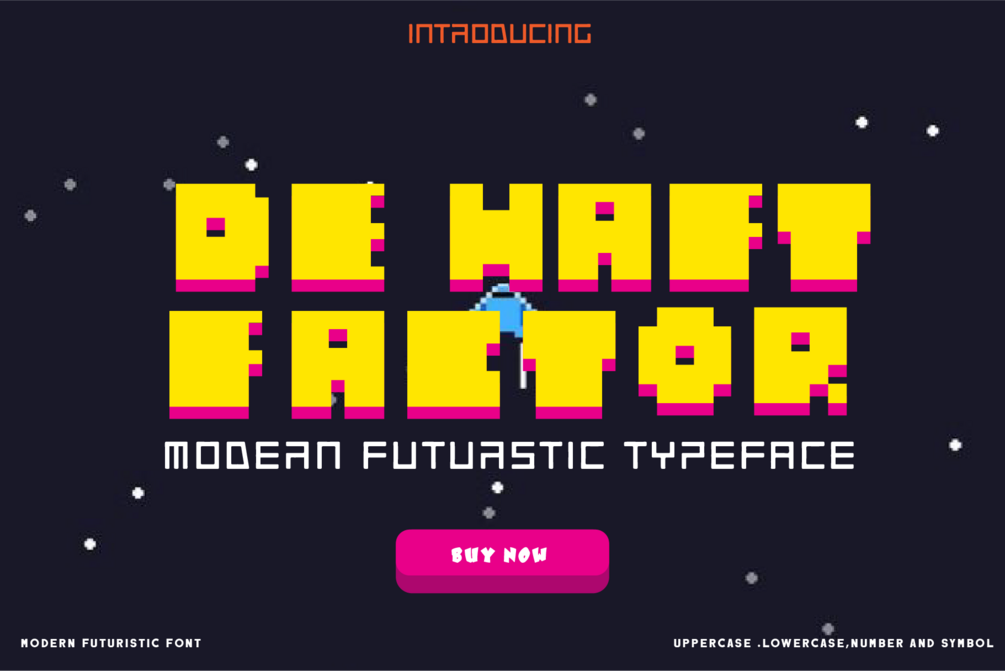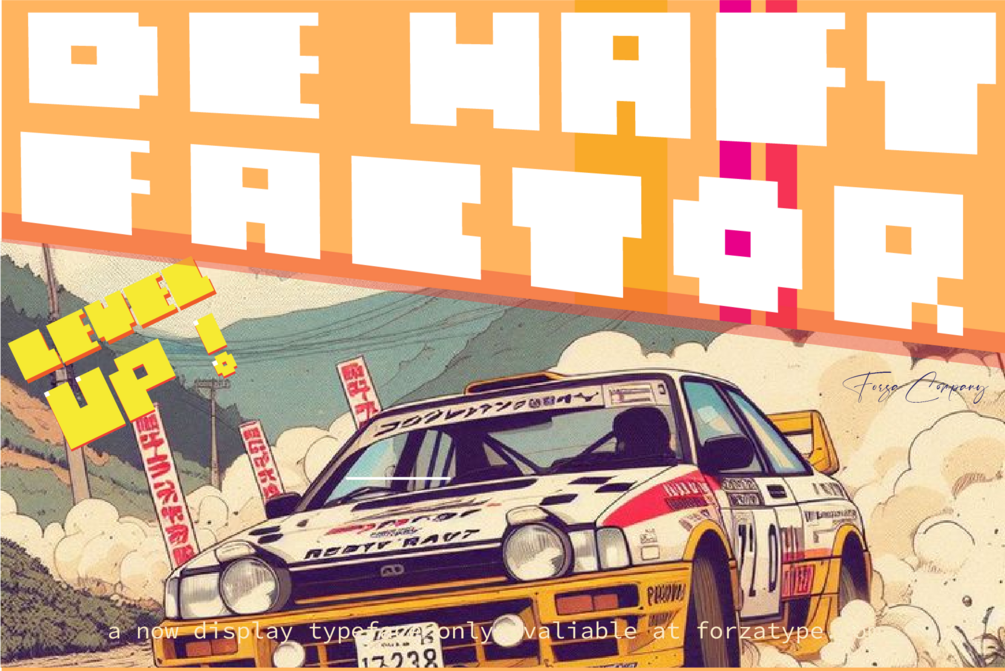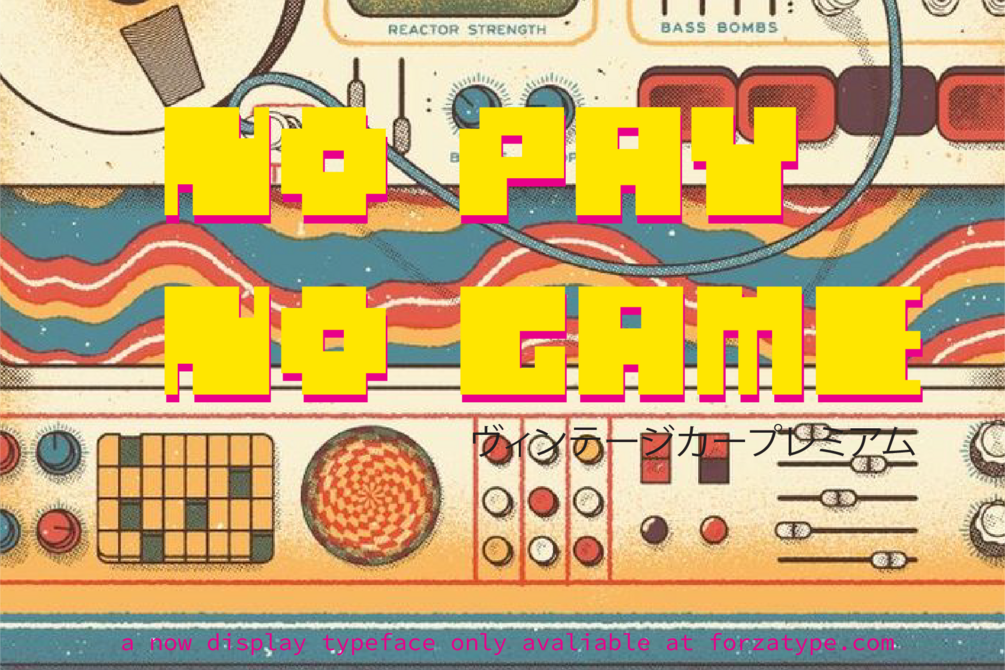
De Factor
De Haft Factor - A Modern Futuristic Typeface with a Retro Twist
De Haft Factor is a typeface that perfectly blends modern futuristic aesthetics with a bold retro vibe. Featuring blocky, thick letterforms with sharp edges, this font exudes power and energy, making it an eye-catching choice for a wide range of design projects.
The typeface utilizes vibrant yellow as its primary color, complemented by striking pink shadows that create a bold 3D visual effect. This color combination adds a playful yet futuristic touch, making it ideal for designs that demand attention and creativity.
Features
De Haft Factor is designed with versatility and aesthetic appeal in mind, offering:
Uppercase Letters: Bold and impactful, perfect for headlines and titles.
Lowercase Letters: Consistent and stylish, great for supporting text.
Numbers and Symbols: Complete your designs with functional yet unique elements.
Applications
De Haft Factor is highly adaptable and suitable for various design purposes, such as:
Posters with a retro or futuristic theme.
Titles and text for video games or creative projects.
Branding for modern, tech, or entertainment-related products.
Digital media like banners, promotions, or social media graphics.
With its space-inspired concept and vibrant visual style, De Haft Factor sparks imagination and delivers standout designs, perfect for grabbing attention in today's competitive creative landscape.
Elevate your designs with De Haft Factor, a typeface that stands out and brings your creative ideas to life!